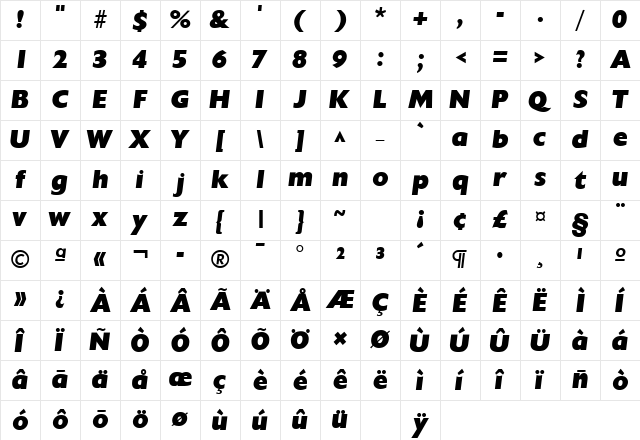
ReparteeSSK Bold Italic
Design Context for ReparteeSSK
ReparteeSSK is a composed and adaptable typeface that performs quietly and consistently across a wide range of design contexts. The slanted form adds forward momentum and visual energy. Its bold stroke weight gives it real presence on the page.